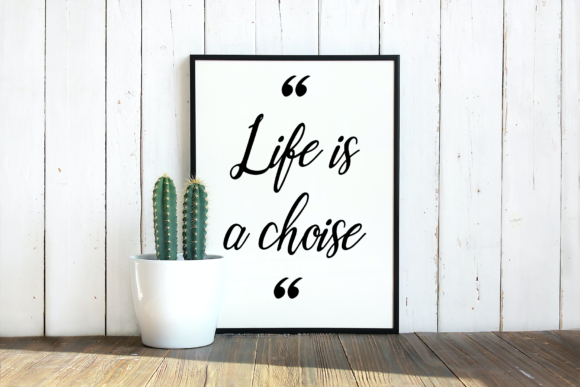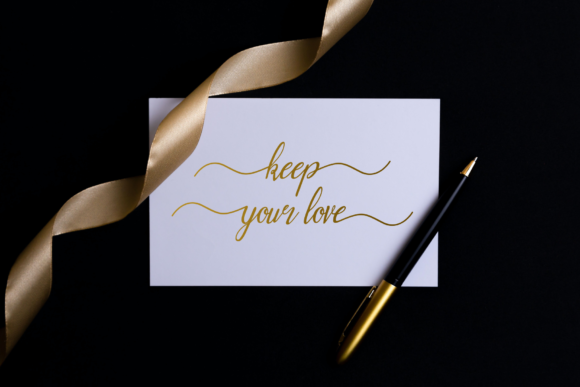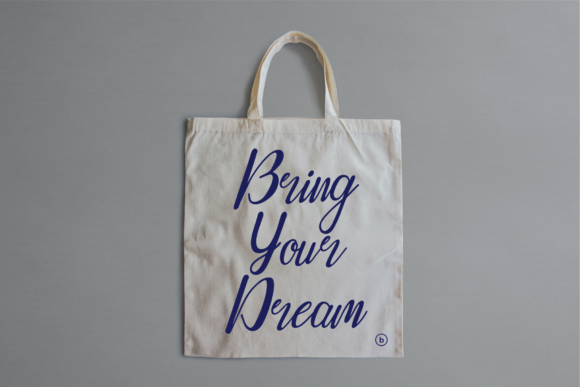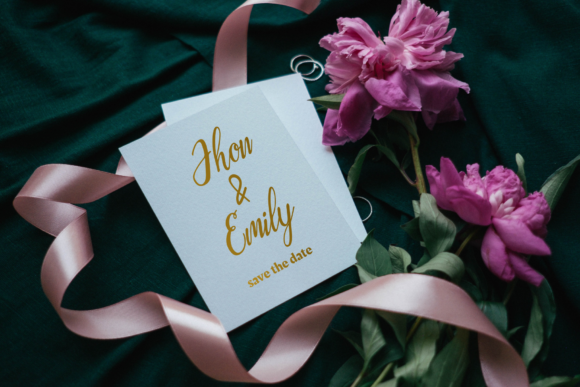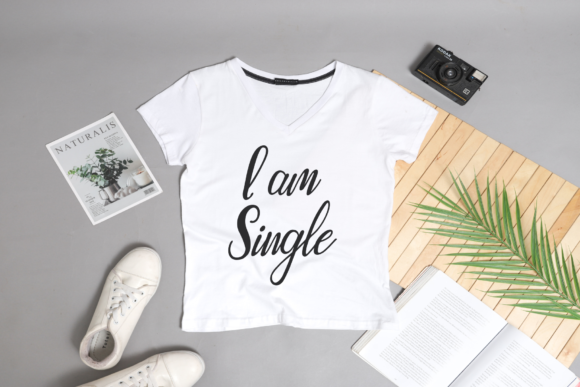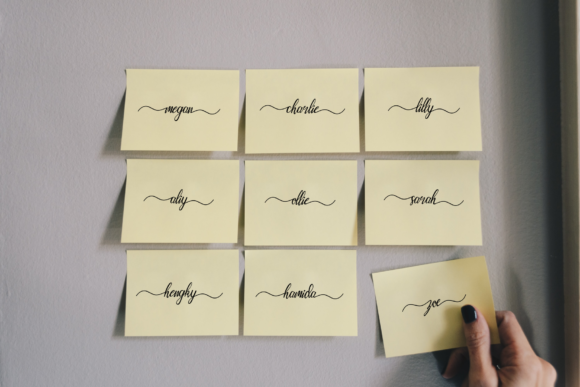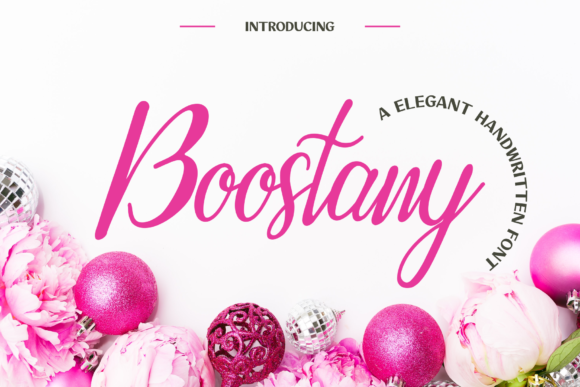
Introducing Boostany Font: Elevate Your Designs with Elegance and Flair
In the world of typography, a font can make or break a design. For designers and crafters seeking to add a touch of sophistication and whimsy to their projects, Boostany Font is an exceptional choice. This delicate, elegant, and flowing handwritten font is designed to elevate your designs, offering a wide range of creative possibilities.
The Beauty of Boostany Font
Boostany Font boasts beautiful, well-balanced characters that seamlessly integrate into various design aesthetics. Its elegant and flowing script is perfect for creating visually stunning text-based designs, from invitations and greeting cards to branding materials and digital content. The font’s refined appearance ensures that your message is conveyed with style and poise, making it an excellent choice for designers aiming to create a lasting impression.
One of the standout features of Boostany Font is its PUA (Private Use Area) encoding. This encoding allows designers to access all glyphs and swashes with ease, providing unparalleled flexibility and creative freedom. With PUA encoding, you can effortlessly navigate the font’s extensive character set, including alternates, ligatures, and decorative swashes, to craft unique and captivating designs.
Boostany Font’s versatility is another reason it stands out from the crowd. Its balanced characters and flowing script make it an excellent match for a wide pool of designs, from:
• Wedding and Event Stationery: Create breathtaking wedding invitations, save-the-date cards, and event posters that exude elegance and romance.
• Branding and Packaging: Develop a cohesive brand identity with Boostany Font, perfect for luxury brands, boutiques, and small businesses seeking to make a statement.
• Digital Content: Enhance your blog, website, or social media graphics with Boostany Font’s refined and flowing script, elevating your online presence.
• Crafting and DIY Projects: Add a personal touch to your crafting and DIY projects, such as handmade cards, scrapbooking, and iron-on designs.
Why Choose Boostany Font?
When selecting a font for your design project, there are several reasons why Boostany Font should be at the top of your list:
• Elegant and Refined: Boostany Font’s delicate and flowing script adds a touch of sophistication to any design.
• Flexible and Versatile: Suitable for a wide range of designs, from wedding stationery to digital content and crafting projects.
Get Creative with Boostany Font
Whether you’re a professional designer or a crafting enthusiast, Boostany Font offers a world of creative possibilities. With its elegant and flowing script, PUA encoding, and versatility, this font is sure to become a staple in your design arsenal.